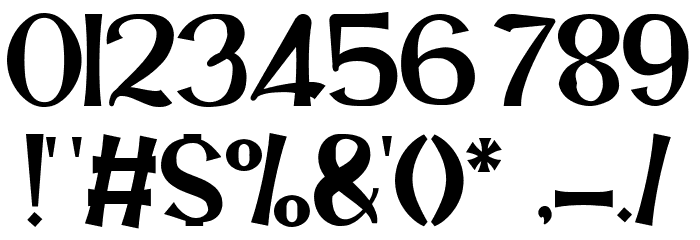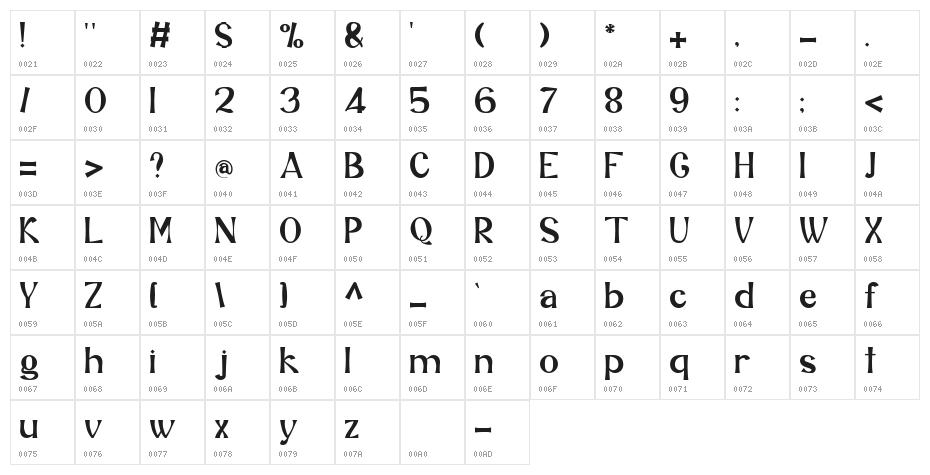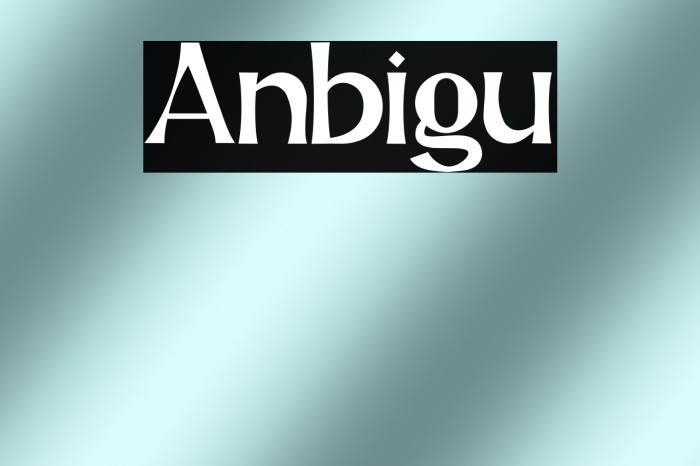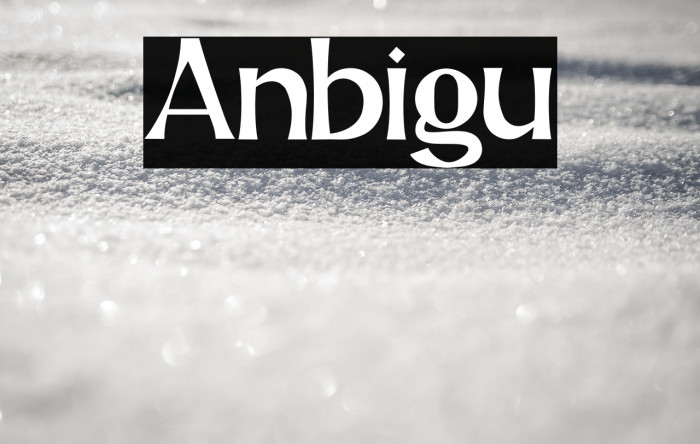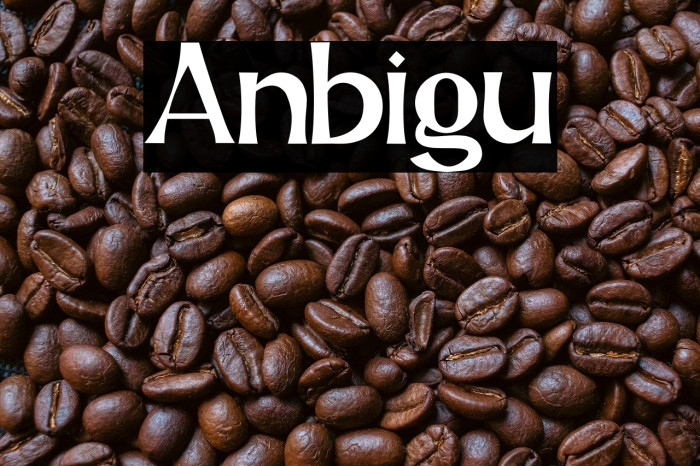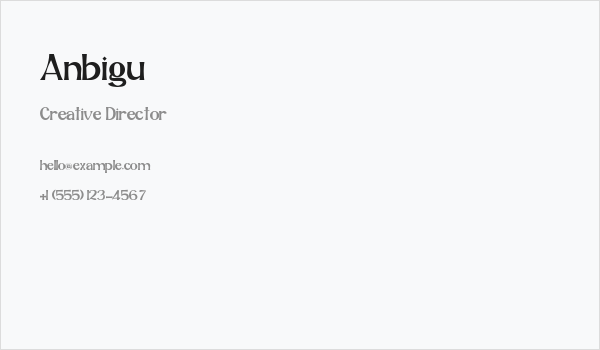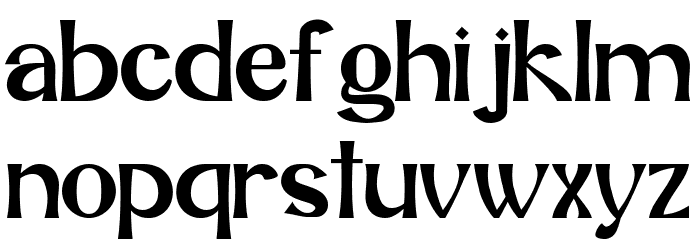
Anbigu Font
Anbigu Description
This font features a unique and playful design with a whimsical flair. The characters exhibit a mix of sharp and rounded edges, creating a dynamic and engaging appearance. The uppercase letters are bold and slightly condensed, while the lowercase letters maintain a consistent style with a touch of elegance. The numerals are distinct and easily readable, complementing the overall aesthetic. Special characters are creatively designed, adding to the font's charm. This font is perfect for projects that require a fun and lively touch, making it suitable for creative branding, children's books, or playful advertising.